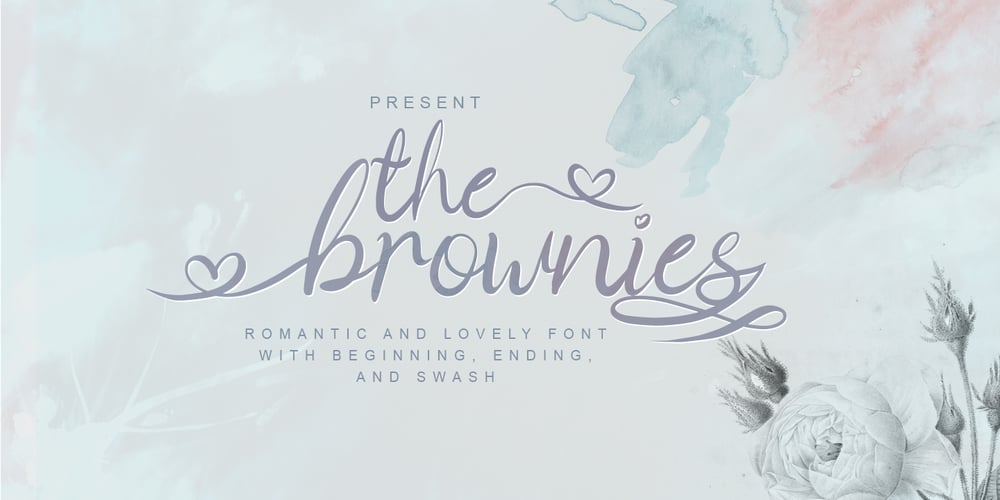
The Brownies Font Family was designed by Diosi Julianto and published by DLetters Studio. The Brownies contains 1 styles and family package options. The Brownies, is a Romantic lovely font with irregular stroke style. trendy and feminine style. It looks lovely for weddings, invitations, thank you cards, quotes, business cards, and more your creative idea.What’s Included : Full Upper + Lowercase Glyphs Number + Punctuation Ligatures Alternates Glyphs, Beginning, Ending, and Swash PUA Encoding How to access alternate glyphs? you can see it on this link ( http://goo.gl/1vy2fv )Thanks for your support, please kindly send us a message with any question about our product.